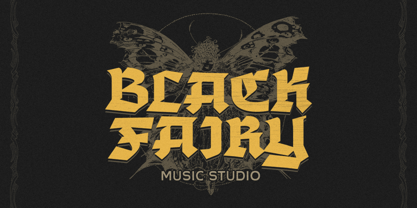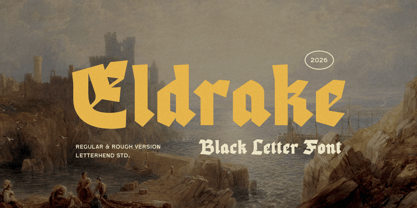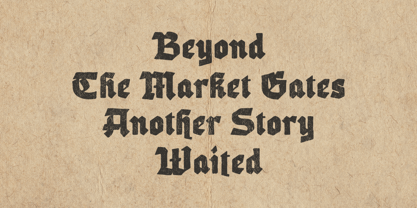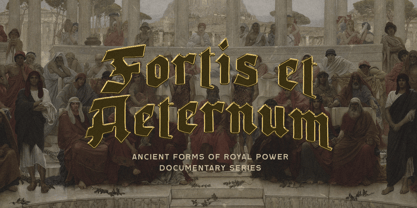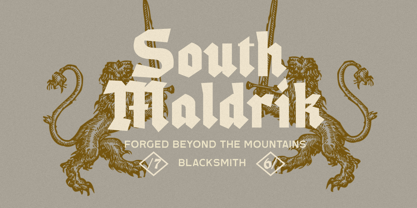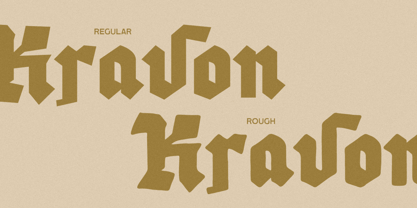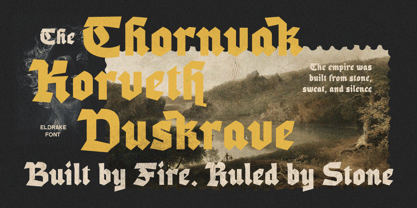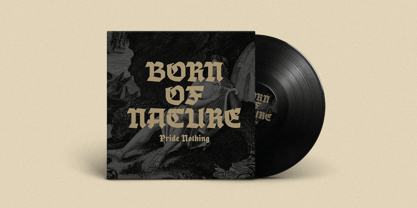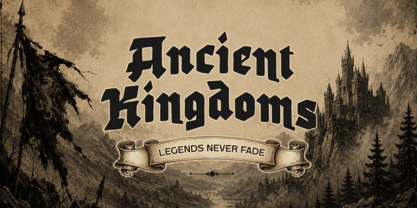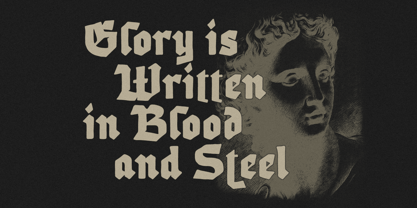
Eldrake
by Letterhend
The Eldrake Font Family was designed by Hendry Juanda and published by Letterhend. Eldrake contains 2 styles and family package options. More about this family
Eldrake carries the spirit of ancient kingdoms, weathered stone walls, and forgotten legends. Its bold blackletter forms blend classic medieval character with a clean, modern structure, creating a look that feels strong, mysterious, and commanding without losing readability.